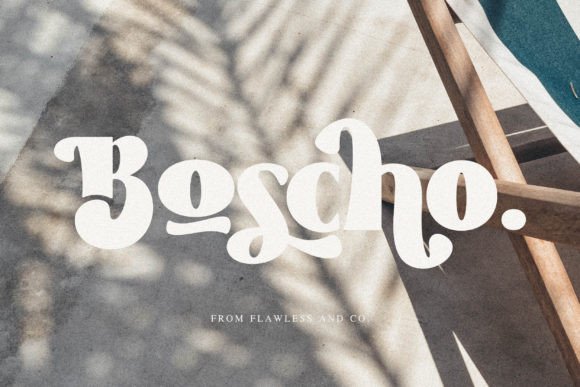
Step into the realm of captivating logos and vintage-inspired designs with Boscho Font. Crafted with a touch of nostalgia and a dash of modern flair, this display font is your creative companion for evoking a sense of timeless appeal. Its groovy vibe pulsates with energy, infusing life into your projects and leaving an indelible mark on your audience.
With Boscho Font, you'll embark on a journey through time, seamlessly blending the charm of the past with the vibrancy of the present. Its carefully crafted characters dance across your designs, conjuring up images of vibrant retro posters, eye-catching logos, and captivating branding that exudes a sense of authenticity and heritage.
Whether you're designing for a fashion label, a retro-themed cafe, or an event poster that demands attention, Boscho Font delivers in spades. Its versatility knows no bounds, allowing you to effortlessly infuse a touch of vintage elegance into any project. Its easy-to-use format makes it a breeze to incorporate into your design software, ensuring a seamless creative experience.
Imagine the allure of a poster adorned with Boscho Font, its bold letters commanding attention against a backdrop of vibrant colors. Or envision the impact of a logo that effortlessly captures the essence of a vintage brand, its nostalgic charm resonating with your target audience. The possibilities are endless, and with Boscho Font as your creative ally, you'll unlock a world of design opportunities that ignite the imagination.
Don't settle for ordinary fonts that fade into the background. Embrace the power of Boscho Font, and let your designs radiate with the allure of the past while captivating the hearts of the present. Take the plunge into a world of vintage charm and modern aesthetics, and watch as your creations blossom into masterpieces that leave a lasting impression.